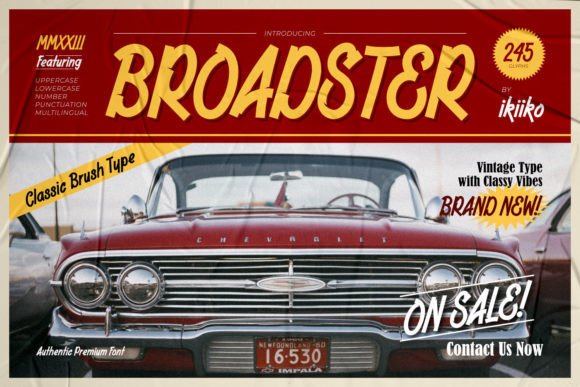
Unleash the allure of classic typography with Broadster, a captivating display font family inspired by the timeless boldness of 60s American advertising and the sleek curves of automotive design. Broadster's meticulously crafted characters exude a sense of sophistication and nostalgia, inviting you to embark on a journey through time with every stroke.
Dive into the world of Broadster and discover a font that commands attention, whether in a formal layout, eye-catching poster, or captivating magazine ad. Its vintage charm adds a touch of authenticity to your designs, evoking the essence of a bygone era while remaining utterly contemporary.
With Broadster, you have the power to transport your audience to a time of audacious self-expression, where every letter tells a story. Its dynamic curves and sharp angles create a visual symphony, harmonizing elegance with a touch of rebellion. Whether you're crafting a stunning newspaper ad or designing a vintage-inspired product label, Broadster is your key to unlocking a world of creative possibilities.
Beyond its aesthetic appeal, Broadster is a versatile performer, adapting seamlessly to a wide range of design challenges. From headlines that demand attention to body text that captivates, Broadster delivers impeccable readability and a touch of intrigue with every word. Its meticulously crafted kerning and spacing ensure that your message shines, making it an ideal choice for both print and digital designs.
Immerse yourself in the world of Broadster and experience the thrill of creating designs that resonate with audiences seeking authenticity and a touch of nostalgia. Let your creativity soar as you explore the endless possibilities of this remarkable font family, where the past and present harmoniously unite to produce something truly special.